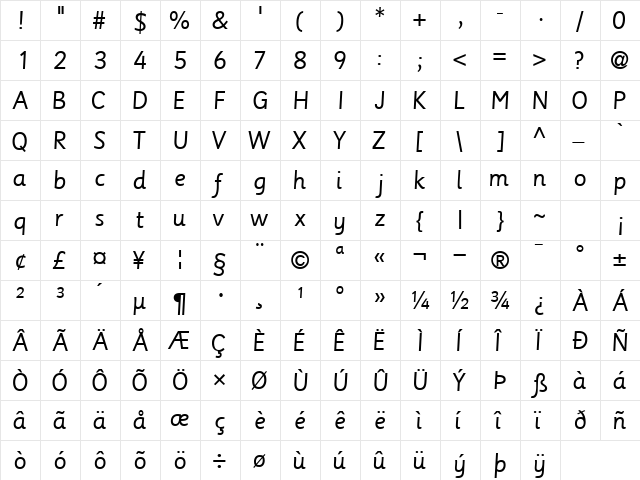
UpstartSSK Regular
Design Context for UpstartSSK Typeface
UpstartSSK offers clean, dependable letterforms without strong stylistic allegiance, making it a practical choice for designers who need flexibility.